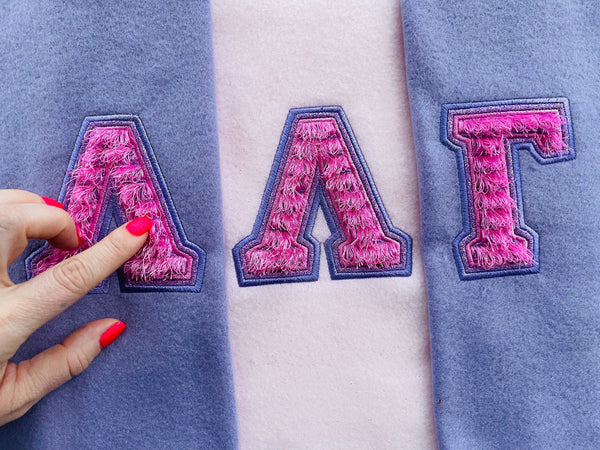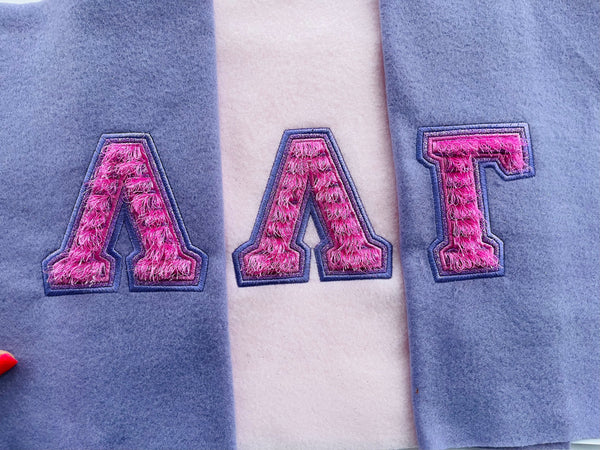
Fringed Double Layer Greek Fraternity & Sorority Appliqué Font
Structure of the Greek Letter Embroidery Design:
The embroidery design consists of five layers of stitching:
- Running Stitch (Layer 1): This indicates the placement seam for the appliqué.
- Tack-Down Stitch (Layer 2): This secures the appliqué fabric in place.
- Satin Stitch Outline (Layer 3): This covers the raw edges of the appliqué for a clean finish.
- Fringed Elements (Layer 4): This includes the long satin stitches that will be used to create the fringed effect.
- Satin Stitch Accents (Layer 5): This provides additional detailing and a polished outline to enhance the design.
How to Create the Fringe
Fringing is a simple process. Stitch the design as usual—the larger satin stitches will appear loose. After completing the design, flip the hoop to view the reverse side and cut the bobbin thread along the long satin stitches. Then, flip the hoop back over and fluff the "fringe" around the design.
Detailed Process
Stitch the Design
Complete the Greek letter design as instructed. Pay attention to the long satin stitch columns that are designed to create the fringe.
Cut Bobbin Threads
Turn the project over to the reverse side. Carefully trim the bobbin thread, staying close to the top stitches that secure the fringe in place.
Fluff the Fringe
Flip the project back to the front side. Use the tip of small scissors to gently fluff the fringe.
Looped vs. Open-Ended Fringe
On the back of the project, you need to cut the bobbin thread along the long satin stitches. This will create a looped fringe on the right side.
Sometimes, the bobbin thread might not be visible. It's actually quite simple to adjust the tension of your bobbin thread to make it looser, allowing you to see it more clearly. Then, you can trim only the bobbin thread, and as a result, you will get a fringe with loops. If you don't want to make any adjustments to your embroidery machine, you can still trim by estimating where the bobbin thread might be. Start by trimming small amounts at a time. This might result in the fringe having open-ended threads instead of loops, which is also okay.
For the best results, I recommend using polyester embroidery threads instead of rayon or silk. When cutting the fringe, it's best to use small, sharp embroidery scissors rather than thread nippers or other thread removers.